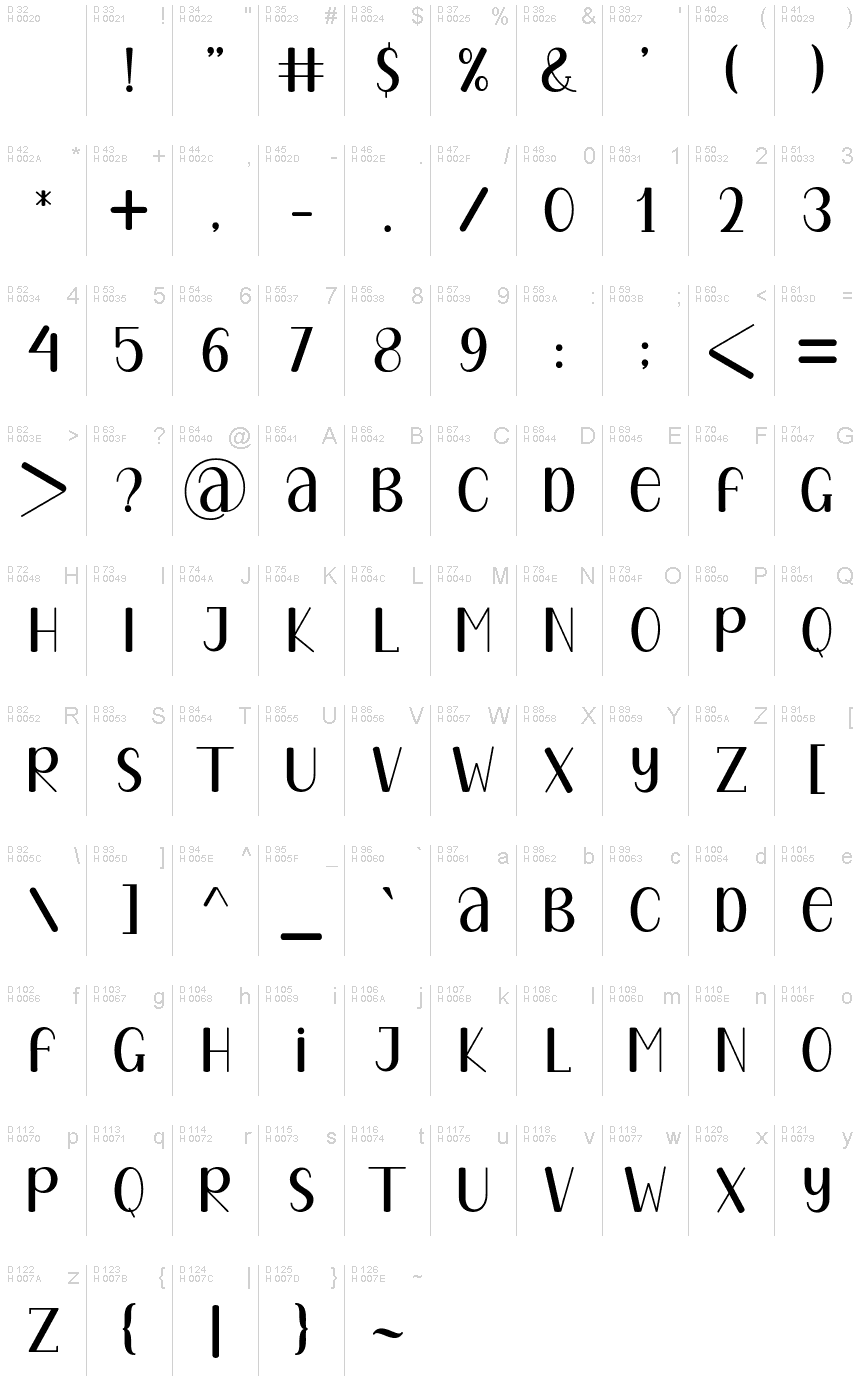
Colombus
Introducing Colombus, the bold and beautiful display font designed by Strong co. With its sharp edges and strong lines, Colombus is perfect for headlines, logos, posters, and any project that demands attention. Its unique style is versatile enough to fit any design concept, from modern to vintage. The sleek appearance of Colombus will elevate your designs to a professional level while adding a touch of elegance. Use it for branding projects or to make your social media posts stand out from the crowd. Let Colombus be the statement piece in your next project and watch as it brings your vision to life.